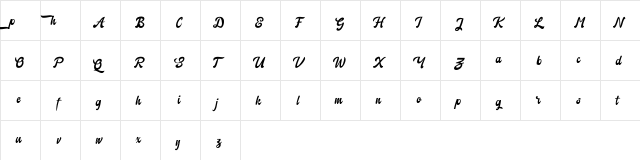
Retrocket Regular
Design Context for Retrocket Typeface
Retrocket has the warm character of retro typography — evoking diners, record sleeves, and the golden age of print advertising.
Font Pairing: Combine Retrocket with a simple slab or neutral sans — period-accurate companions reinforce the vintage feel without competing for attention.
Pro Tip: Lean into Retrocket's period character by pairing it with aged paper textures, muted colour palettes, and vintage illustration styles.